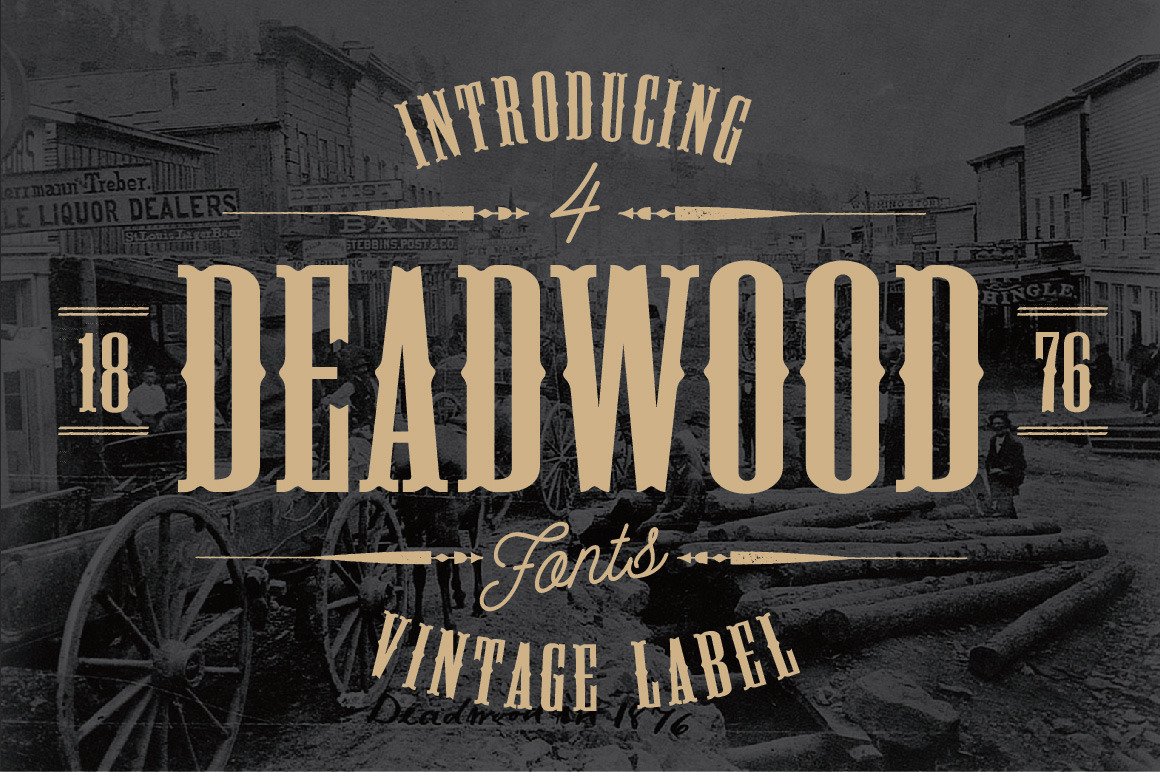
Deadwood Vintage Typeface w/Bonus
This font family release is inspired by the historic mining town of Deadwood, South Dakota. It is reminiscent of the classic condensed style you might find painted on storefront signs from that era.
DEADWOOD comes in four styles, a crisp, clean REGULAR version for you to distress as well as DUST, GRAVEL and SAWTOOTH. Each font has upper and lower case as well as numbers and special characters. This font currently is only in .TTF format. This family supports multi-lingual so If I have missed anything please let me know. All version have built in imperfections that will display differently at different point sizes.